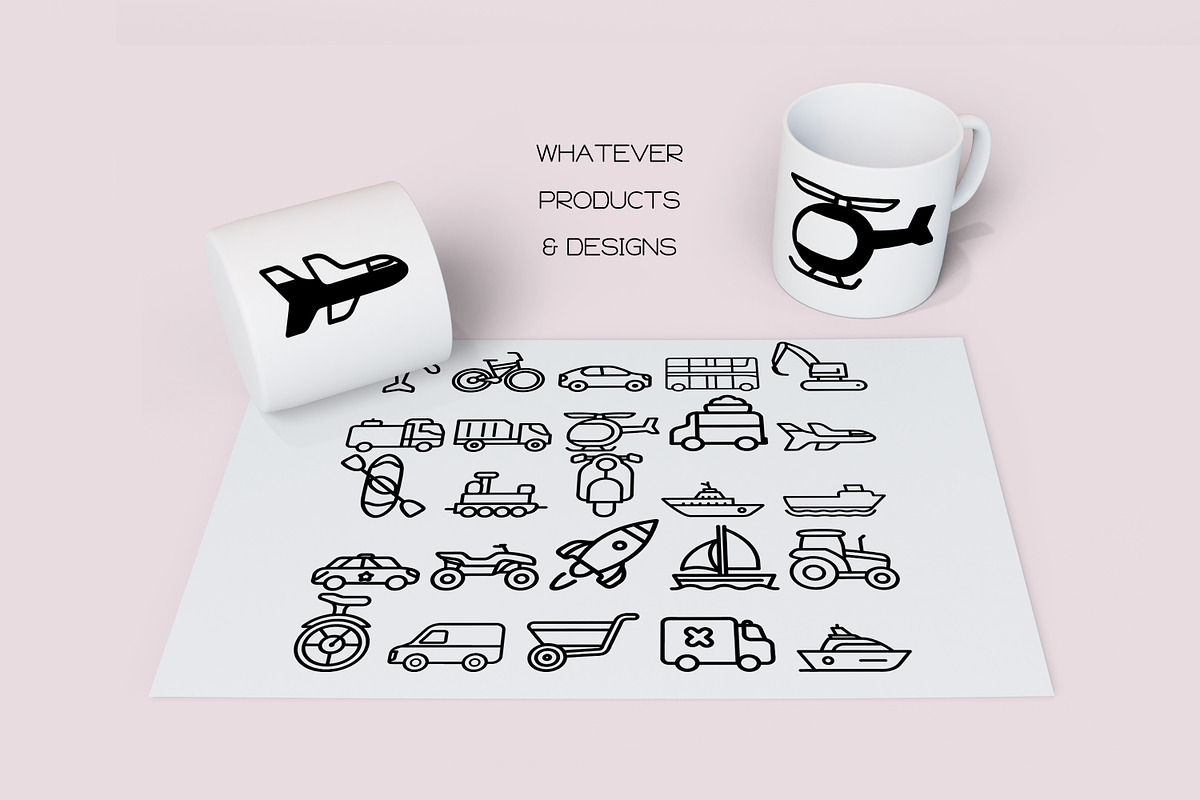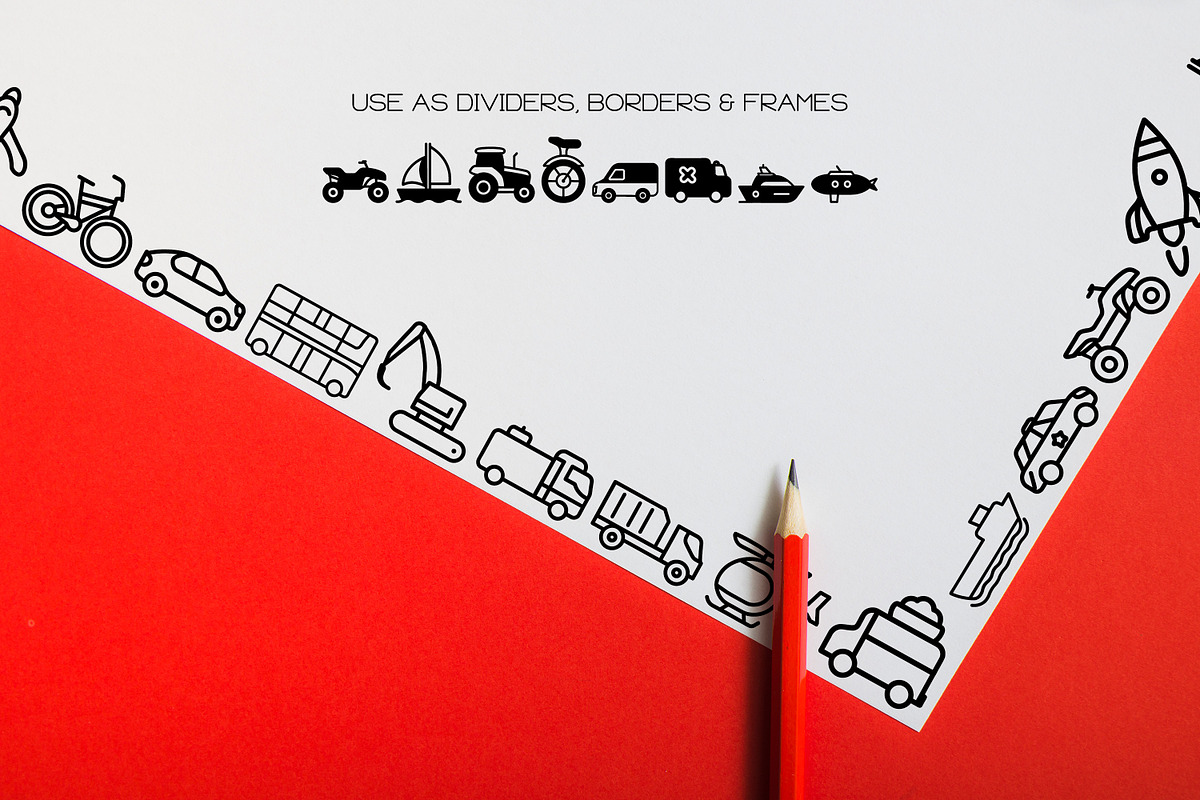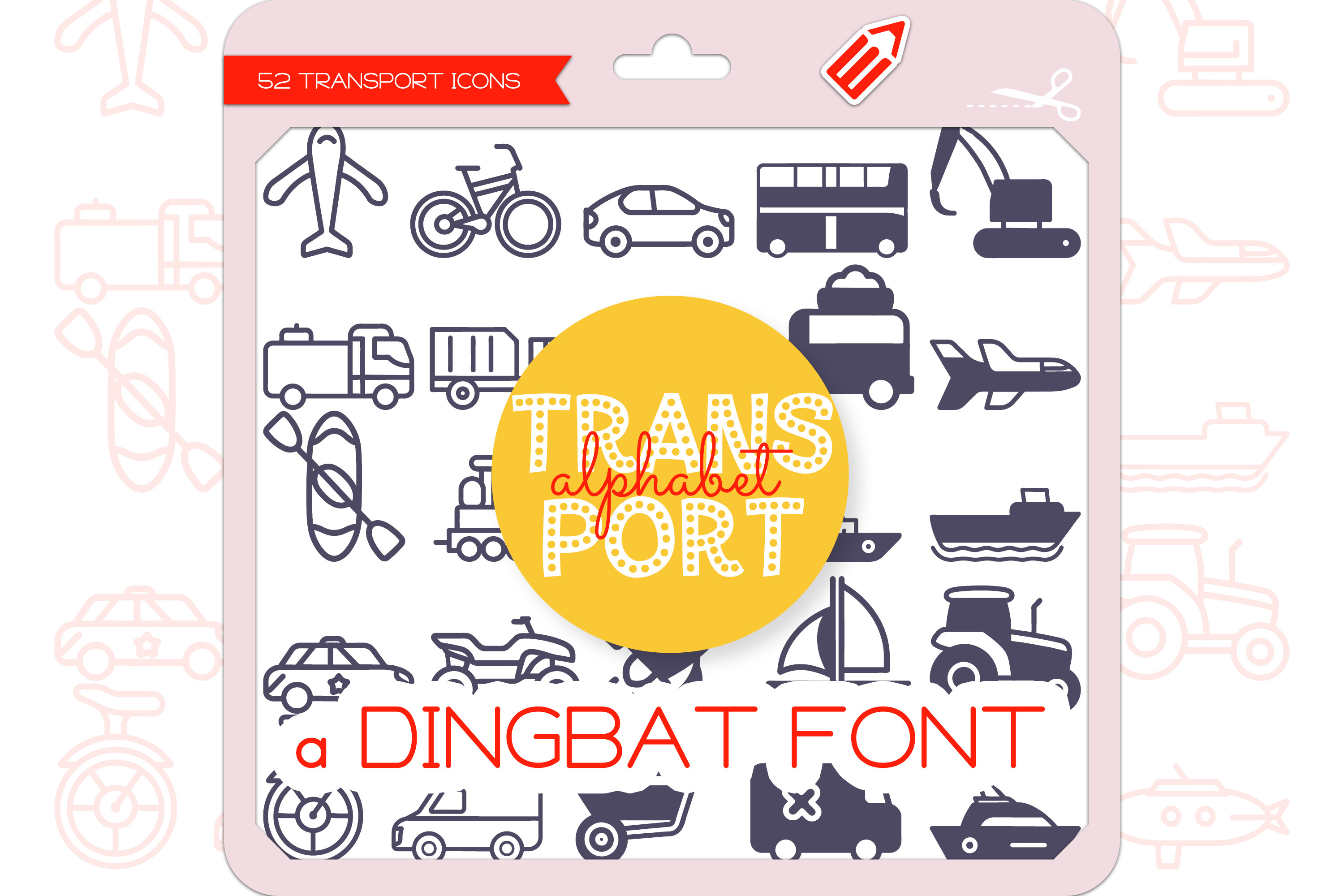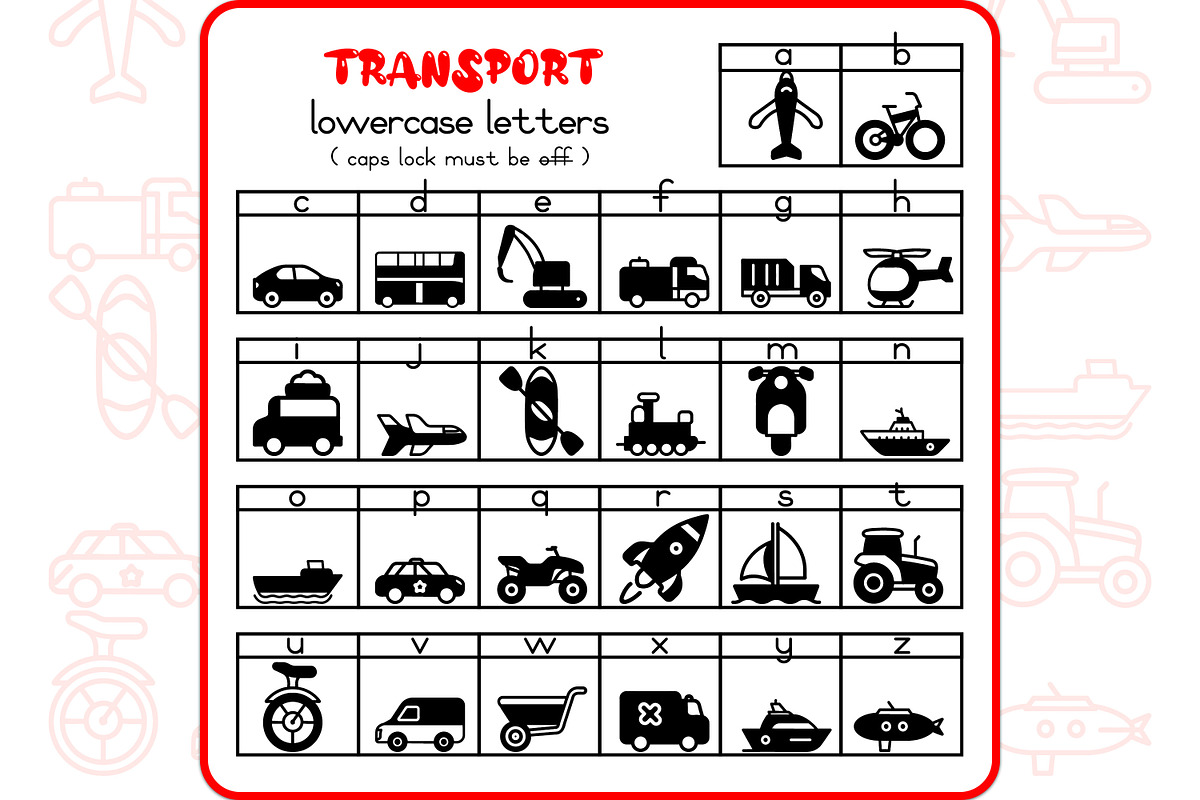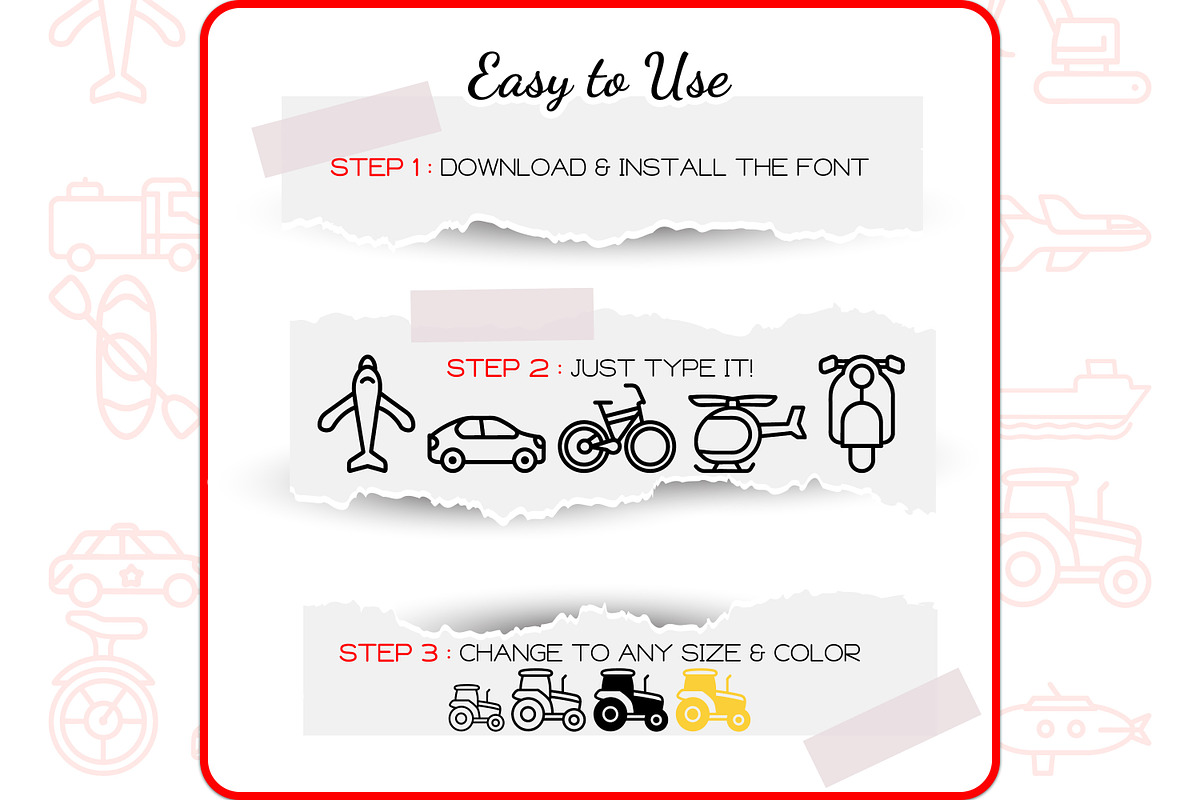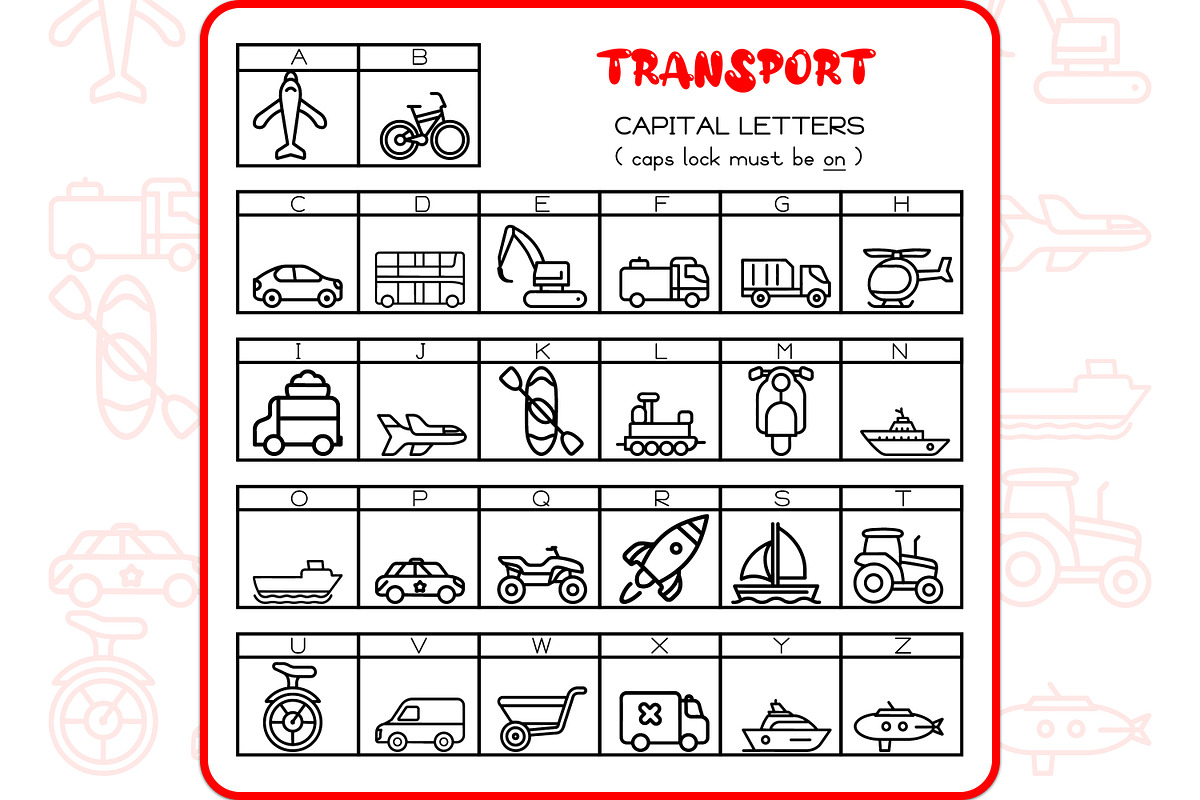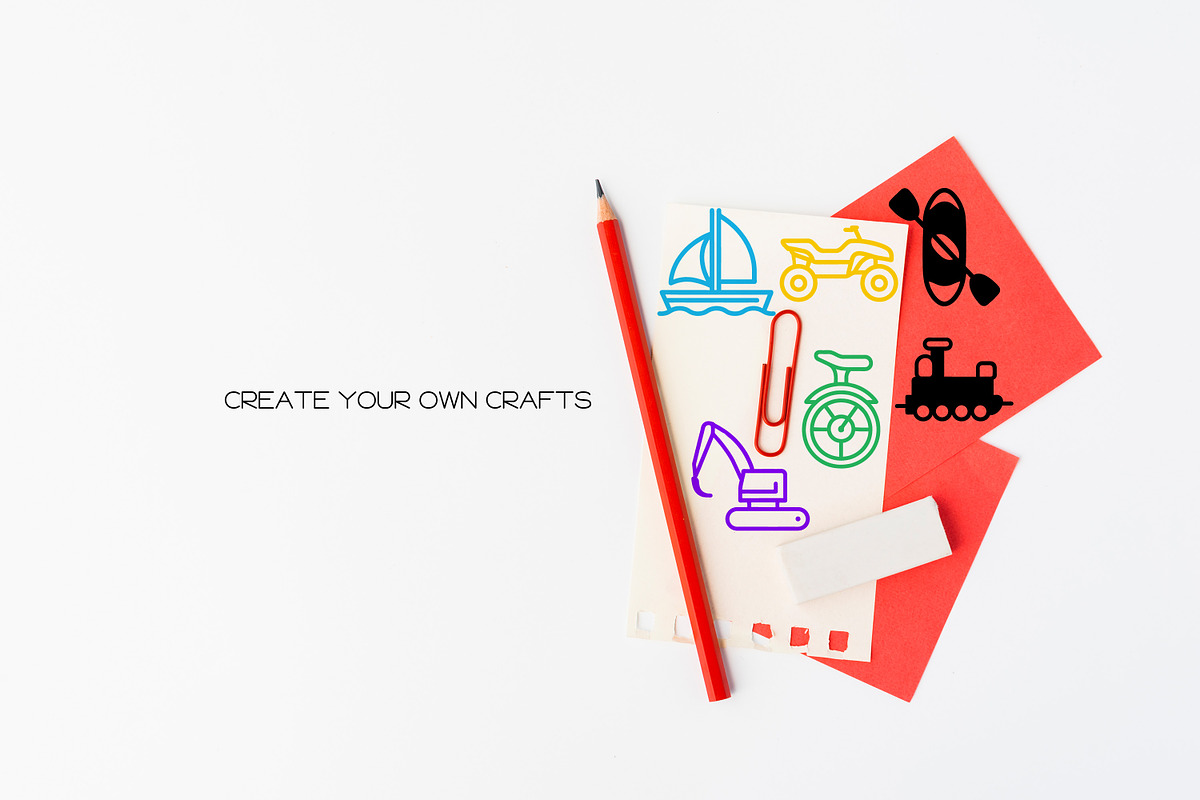
Transport Alphabet - Dingbat Font
Transport Alphabet is a unique and cute dingbat font, each transport icon representing each letter of the alphabet from A to Z. It contains 52 icons in 2 styles (Outline & Filled-Outline). Add this font to your creative ideas and make your arts outstanding!
The Transport Alphabet Icons Dingbat Font featuring 26 A-Z things Airplane, Bicycle, Car, Double-decker Bus, Excavator, Fire Truck, Garbage Truck, Helicopter, Ice Cream Truck, Jet, Kayak, Locomotive, Motorcycle, Navy Ship, Oil Tanker, Police Car, Quad Bike, Rocket, Sailboat, Tractor, Unicycle, Van, Wheelbarrow, X-ray Truck, Yacht, Zeppelin